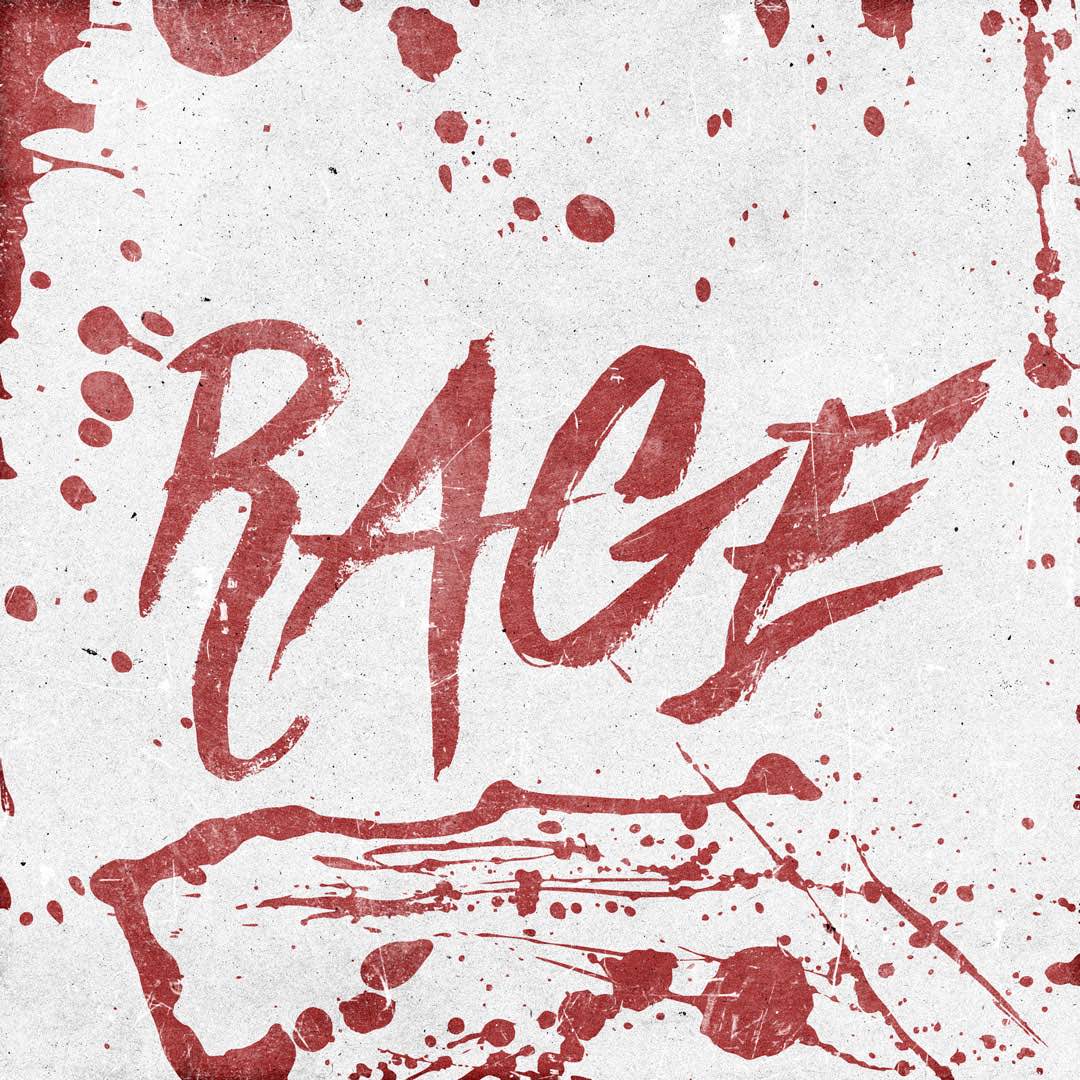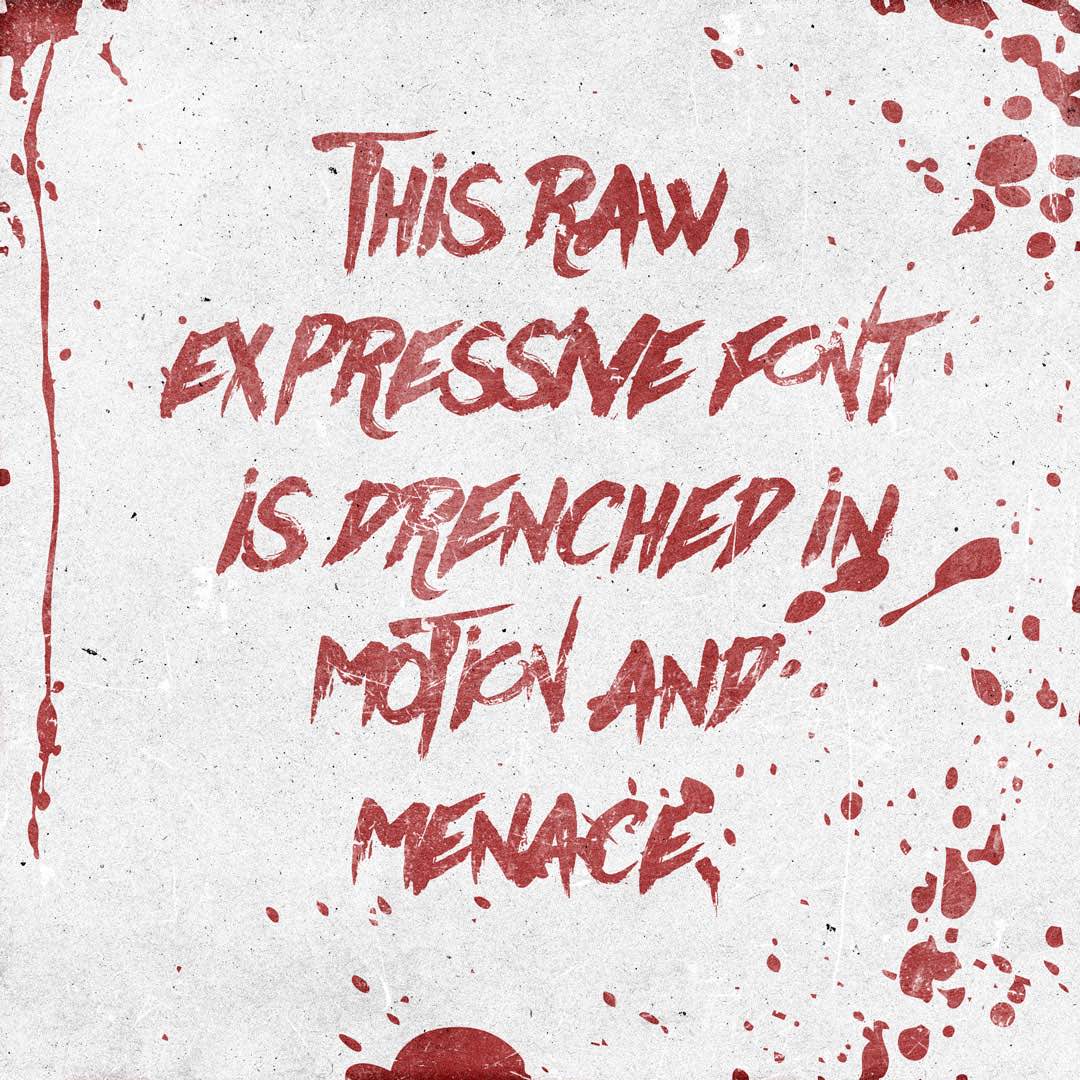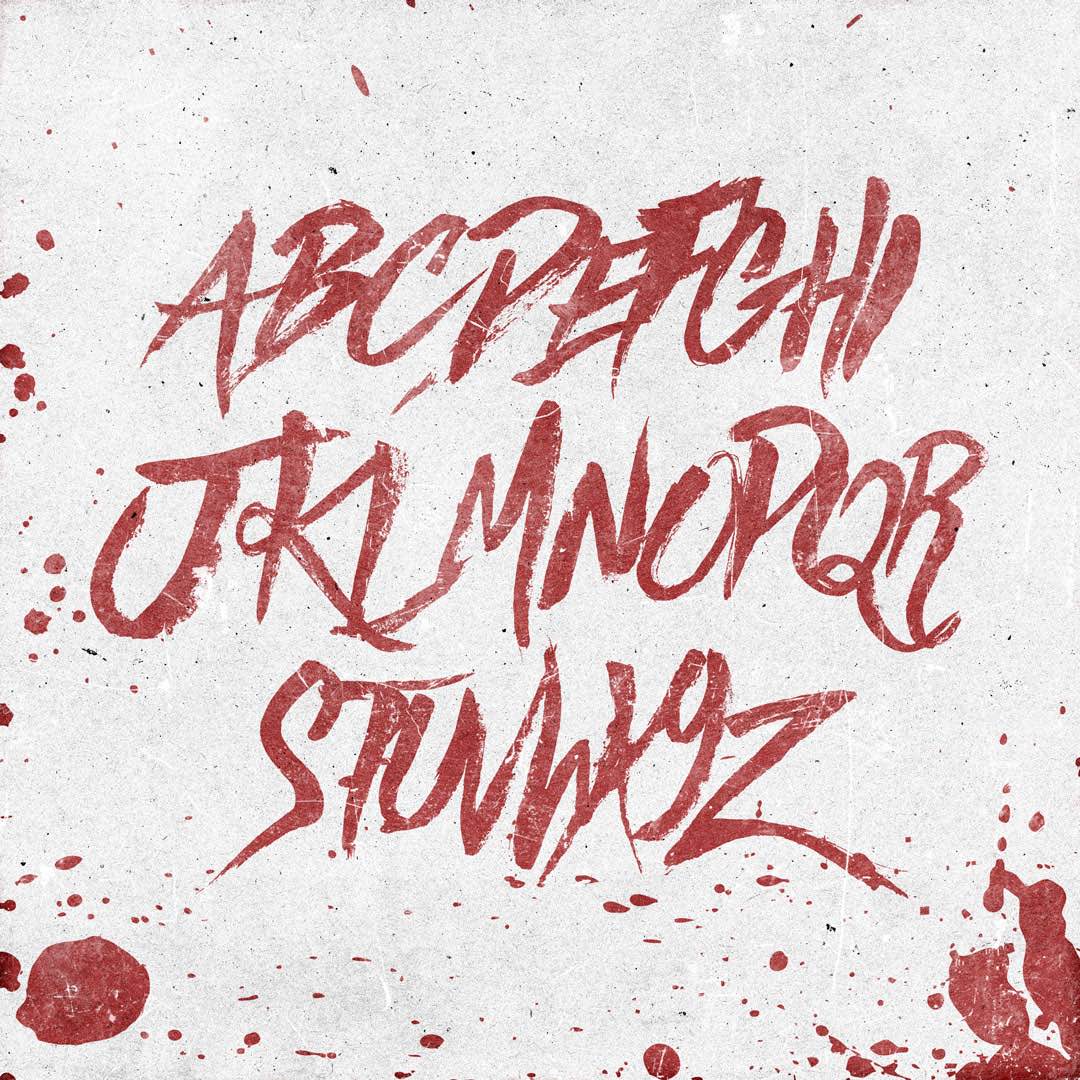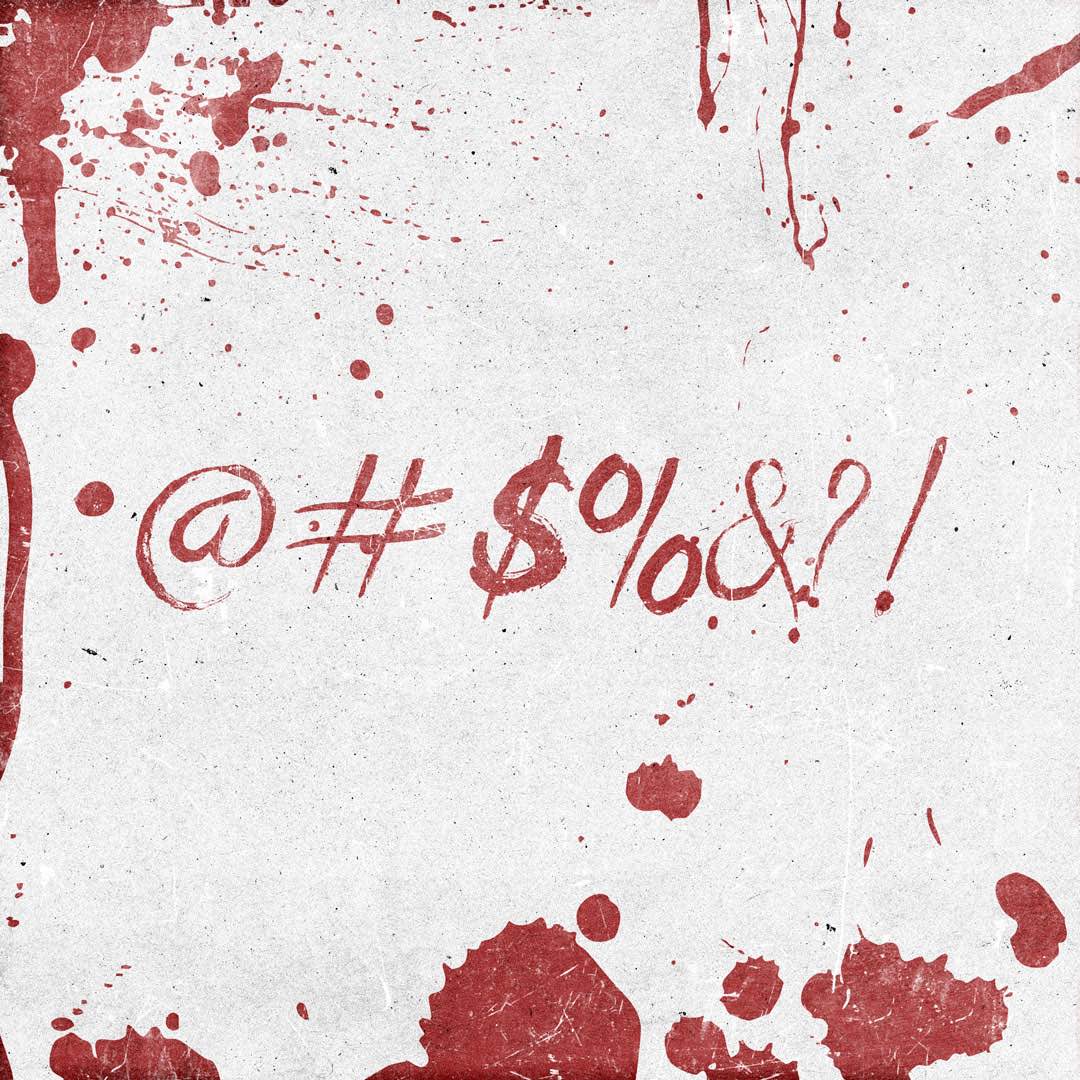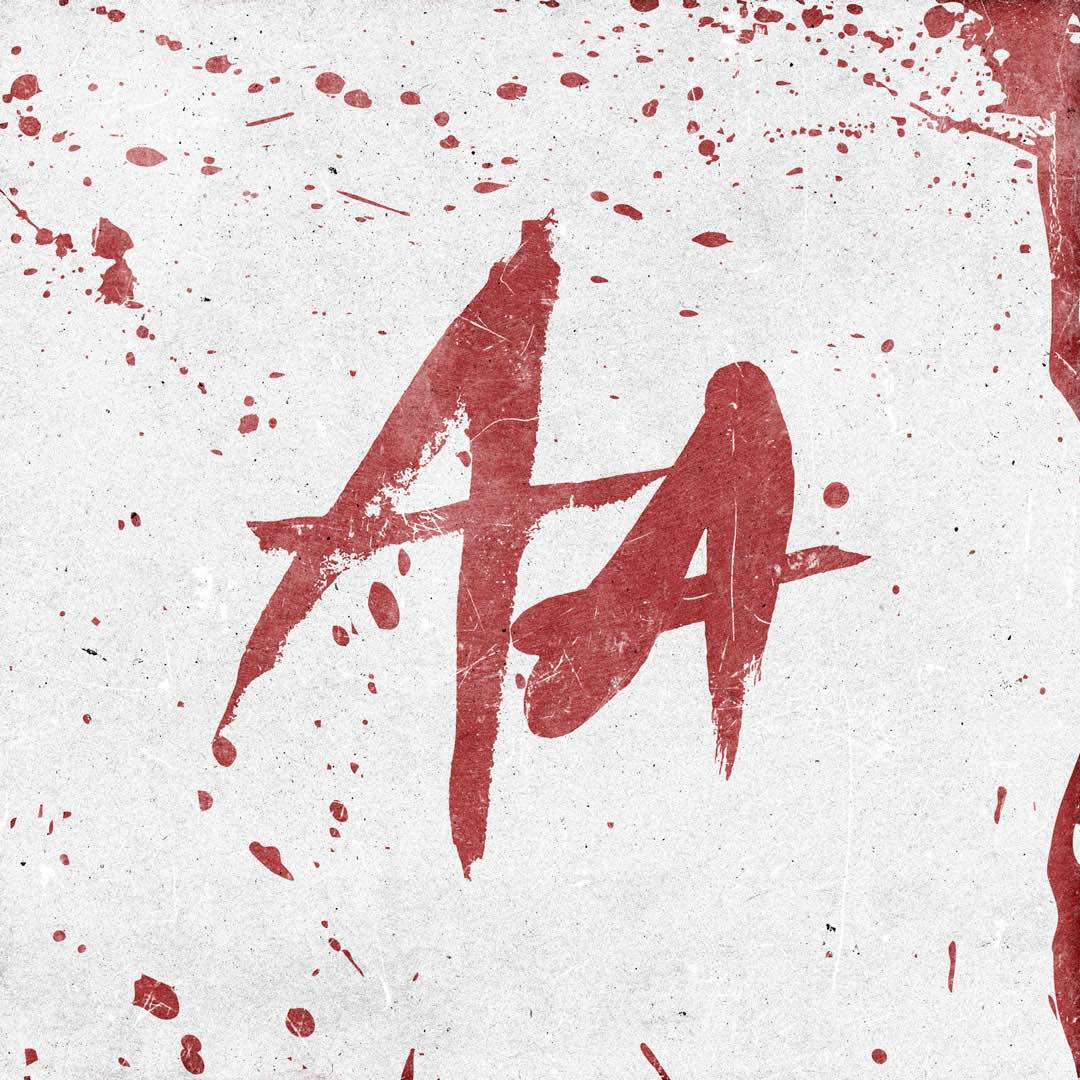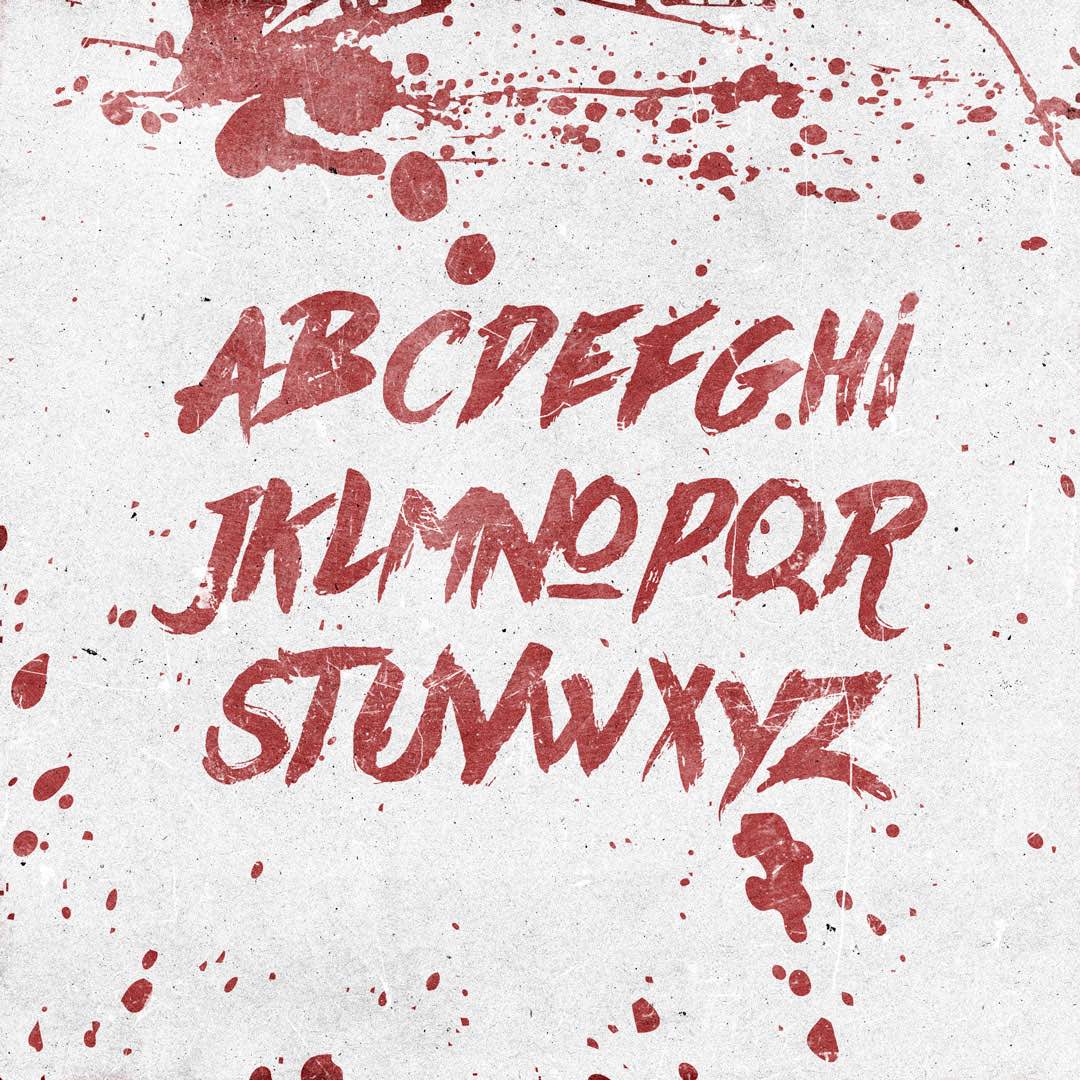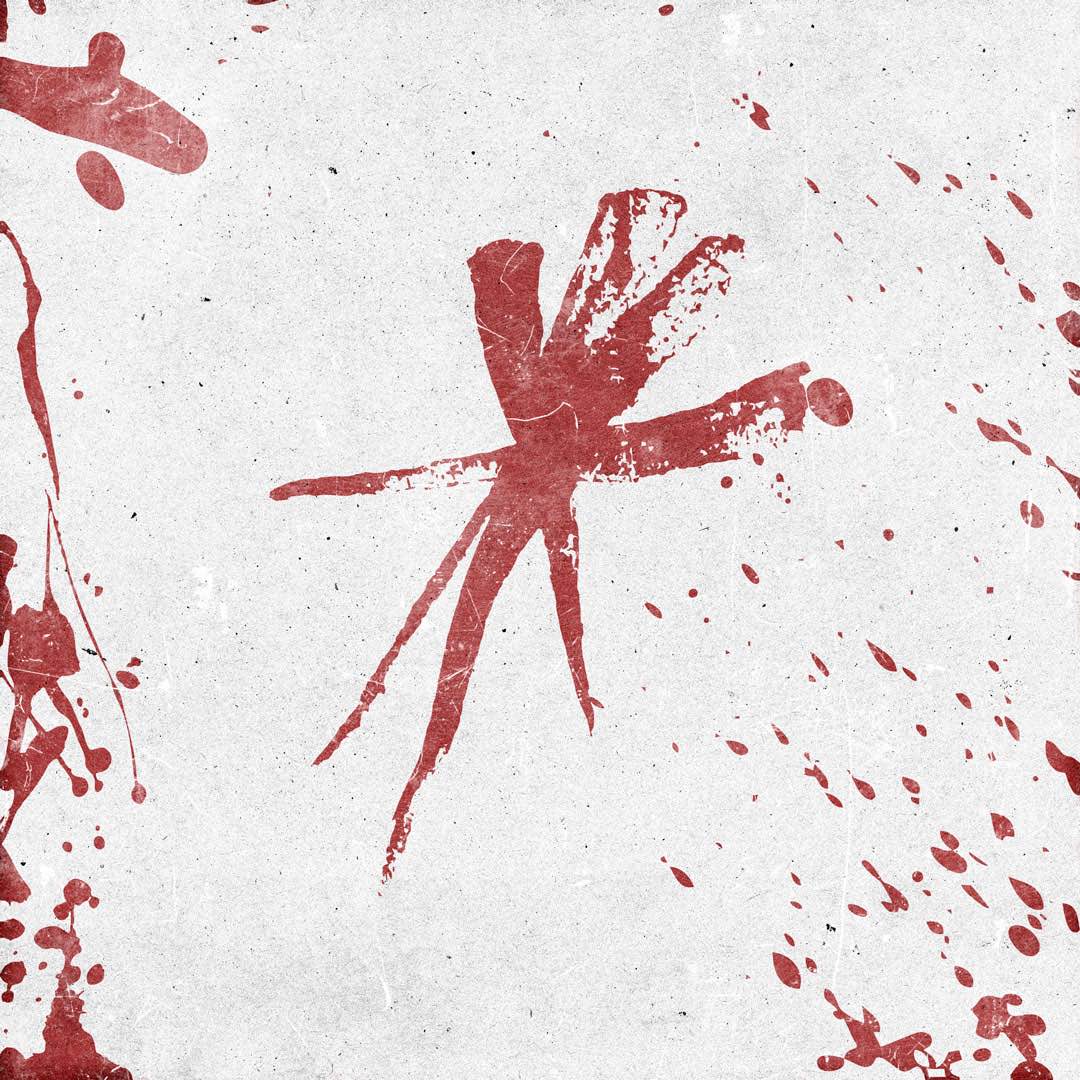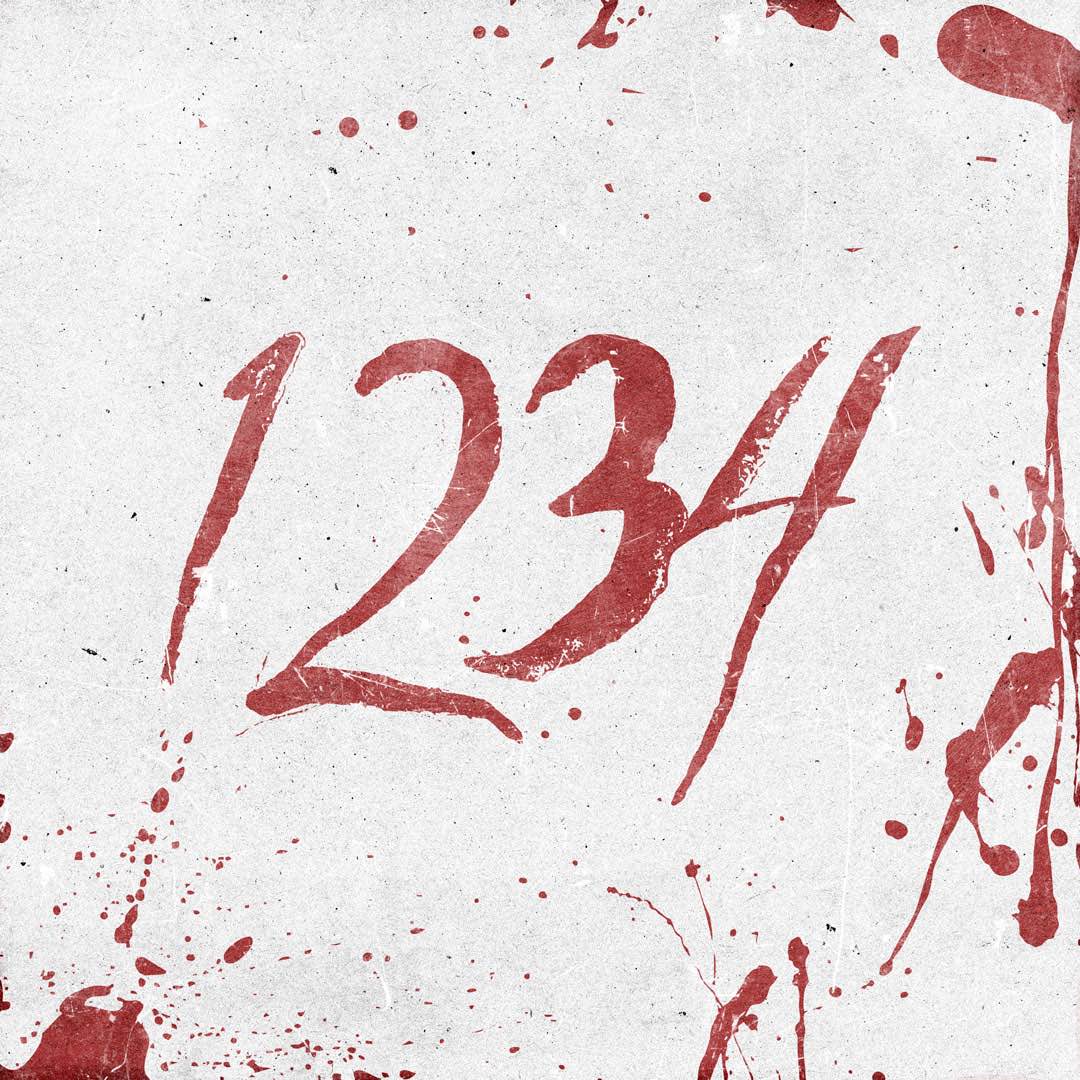
Rage doesn’t ask, it carves its message into concrete. This raw, expressive script font is drenched in motion and menace, like it was scratched out in fury across a locker door or scrawled in spray paint during a blackout. With its jagged energy and hand-drawn urgency, Rage is perfect for punk posters, horror merch, underground zines, or any design that needs to scream without a mic. It’s not clean. It’s not polite. It’s Rage.